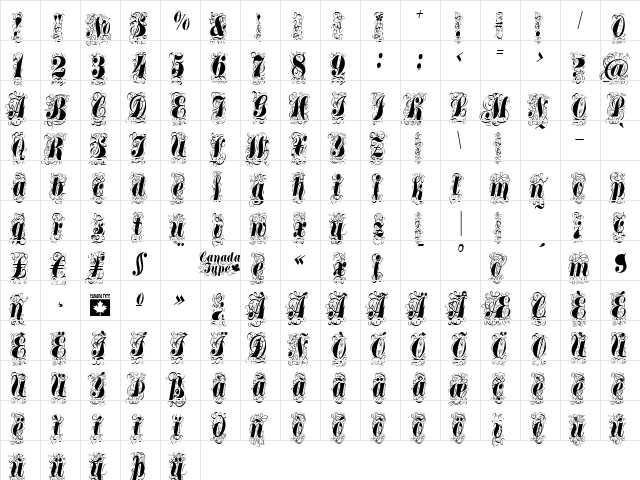
Treasury Flourish Regular
Design Context for Treasury Flourish Typeface
Treasury Flourish is a composed and adaptable typeface that performs quietly and consistently across a wide range of design contexts.